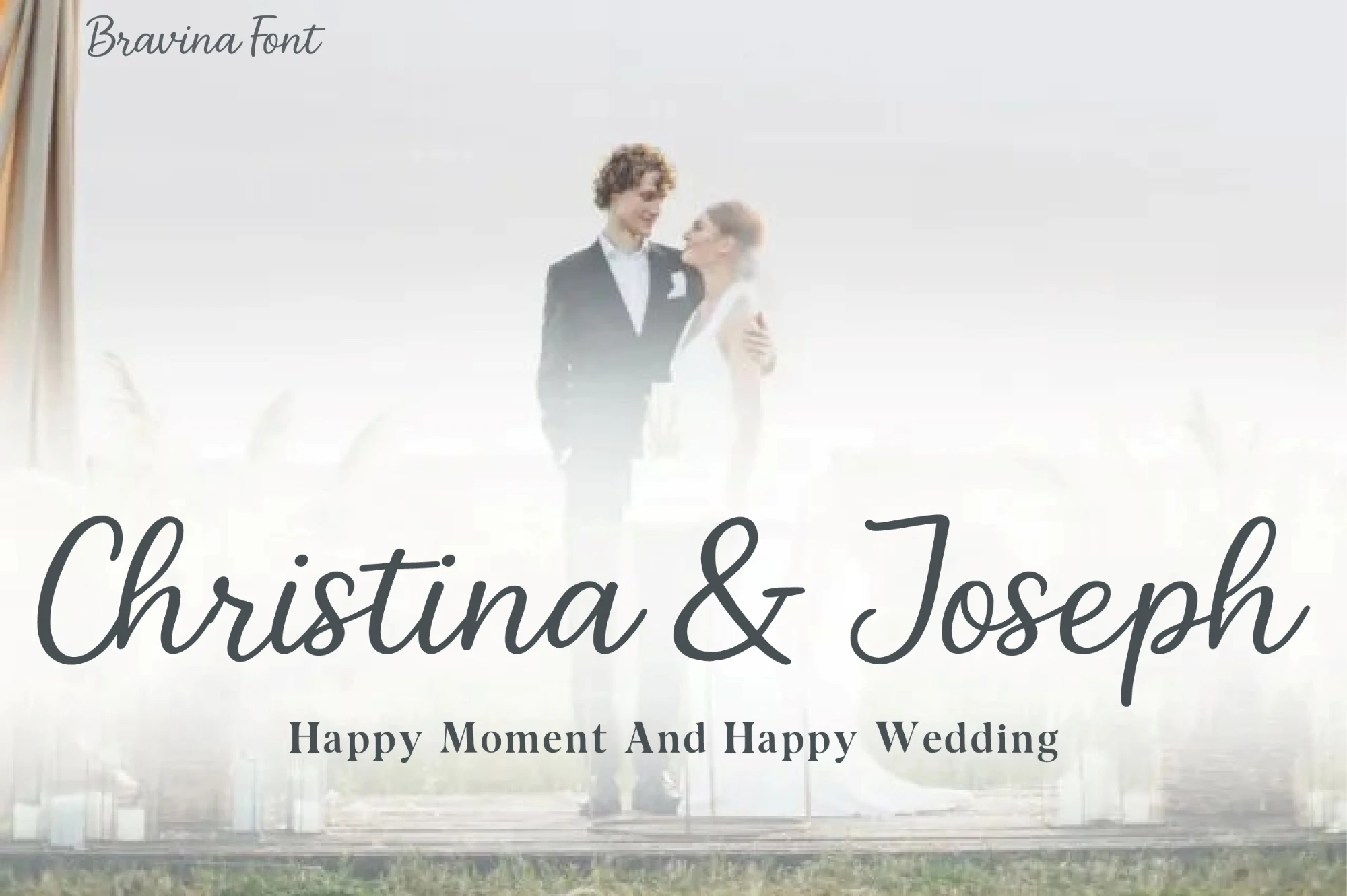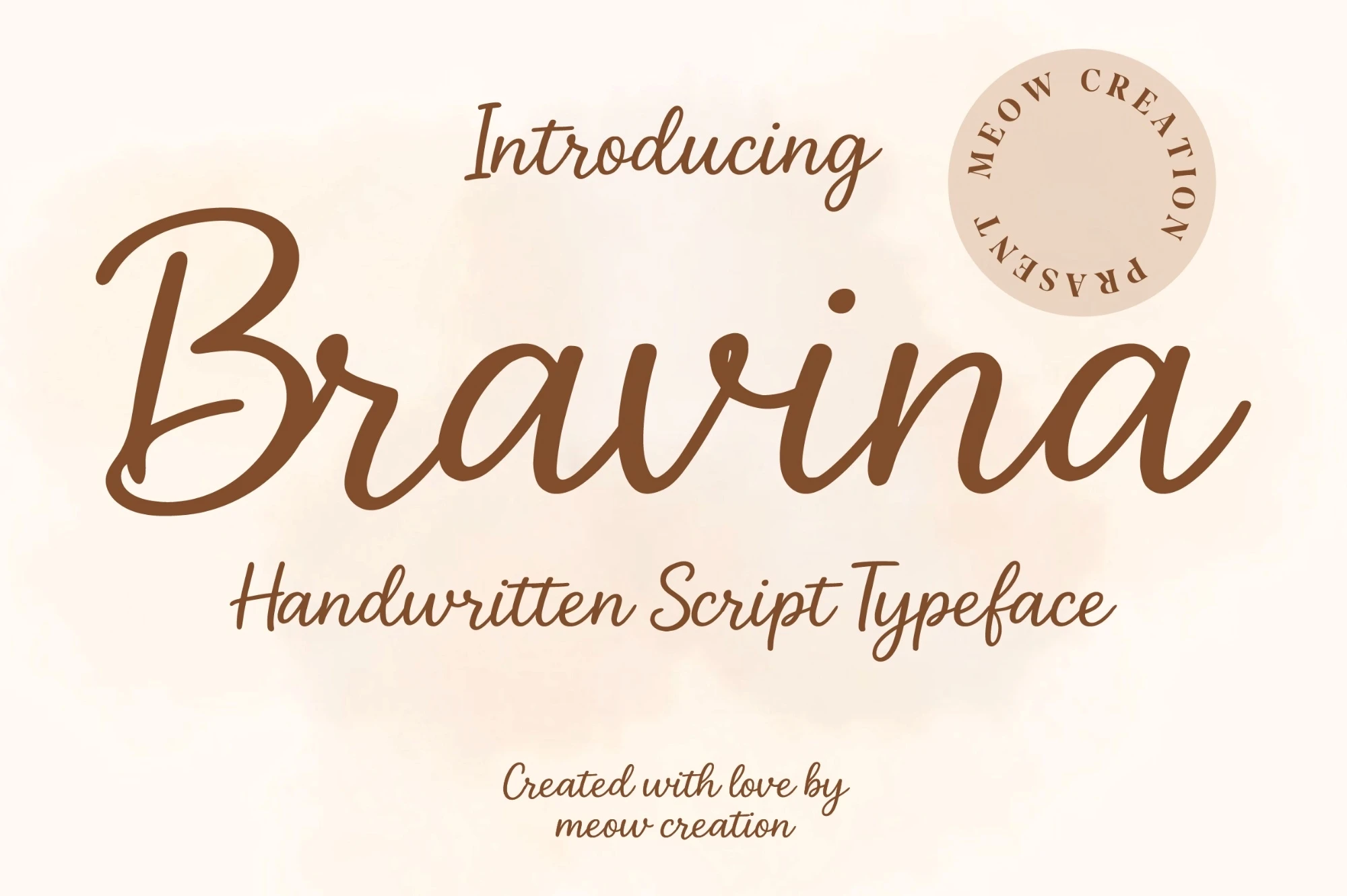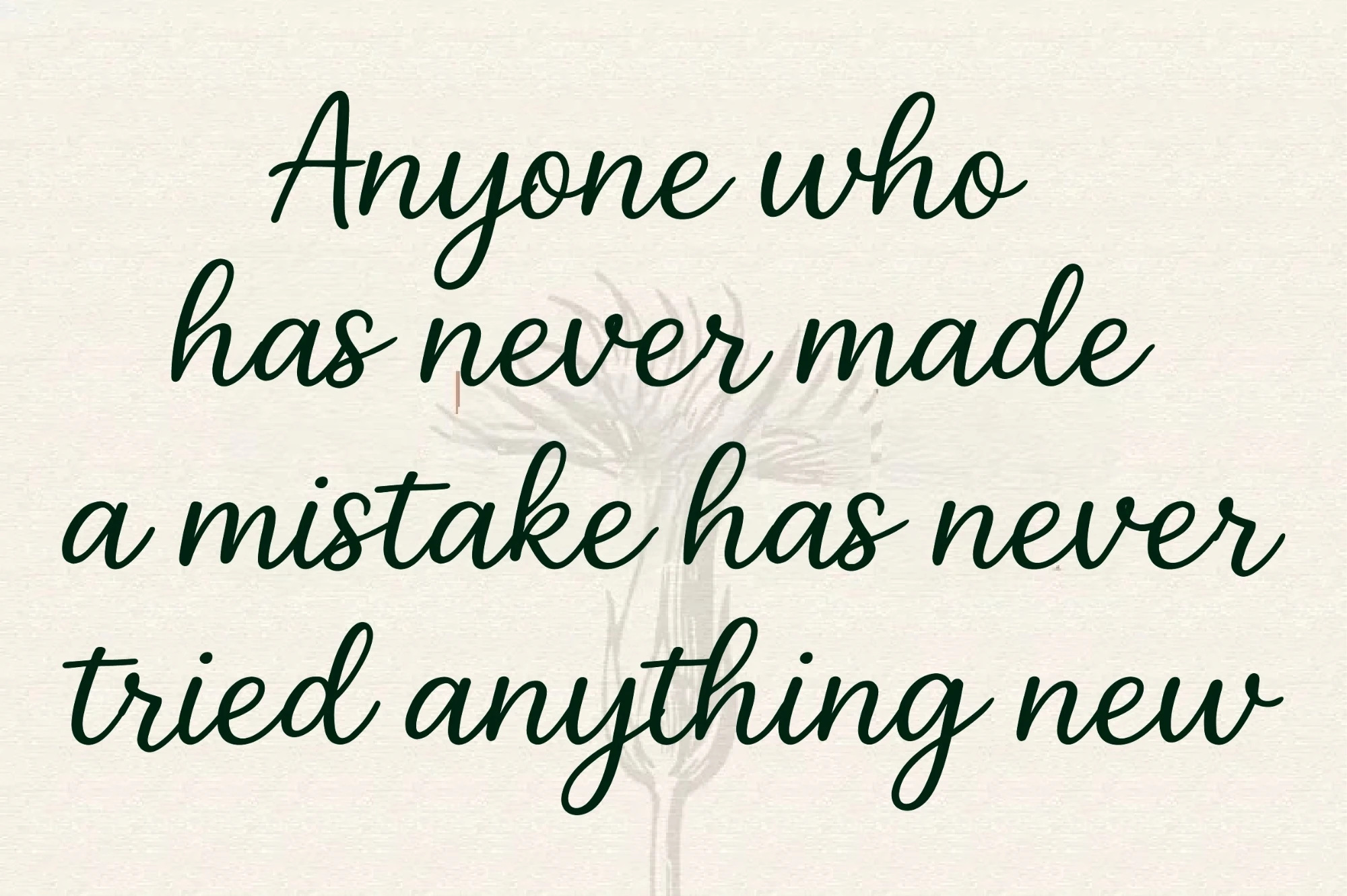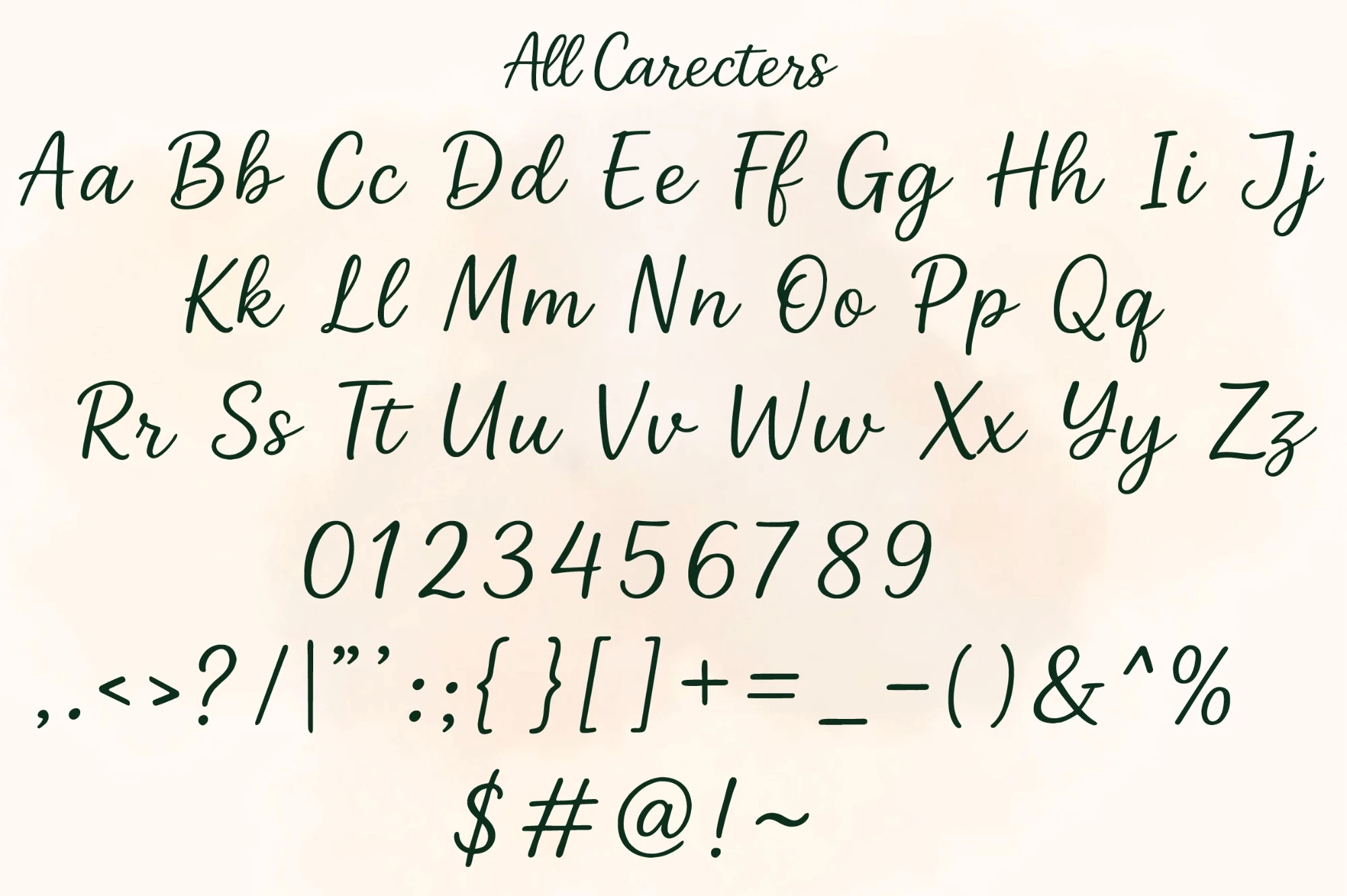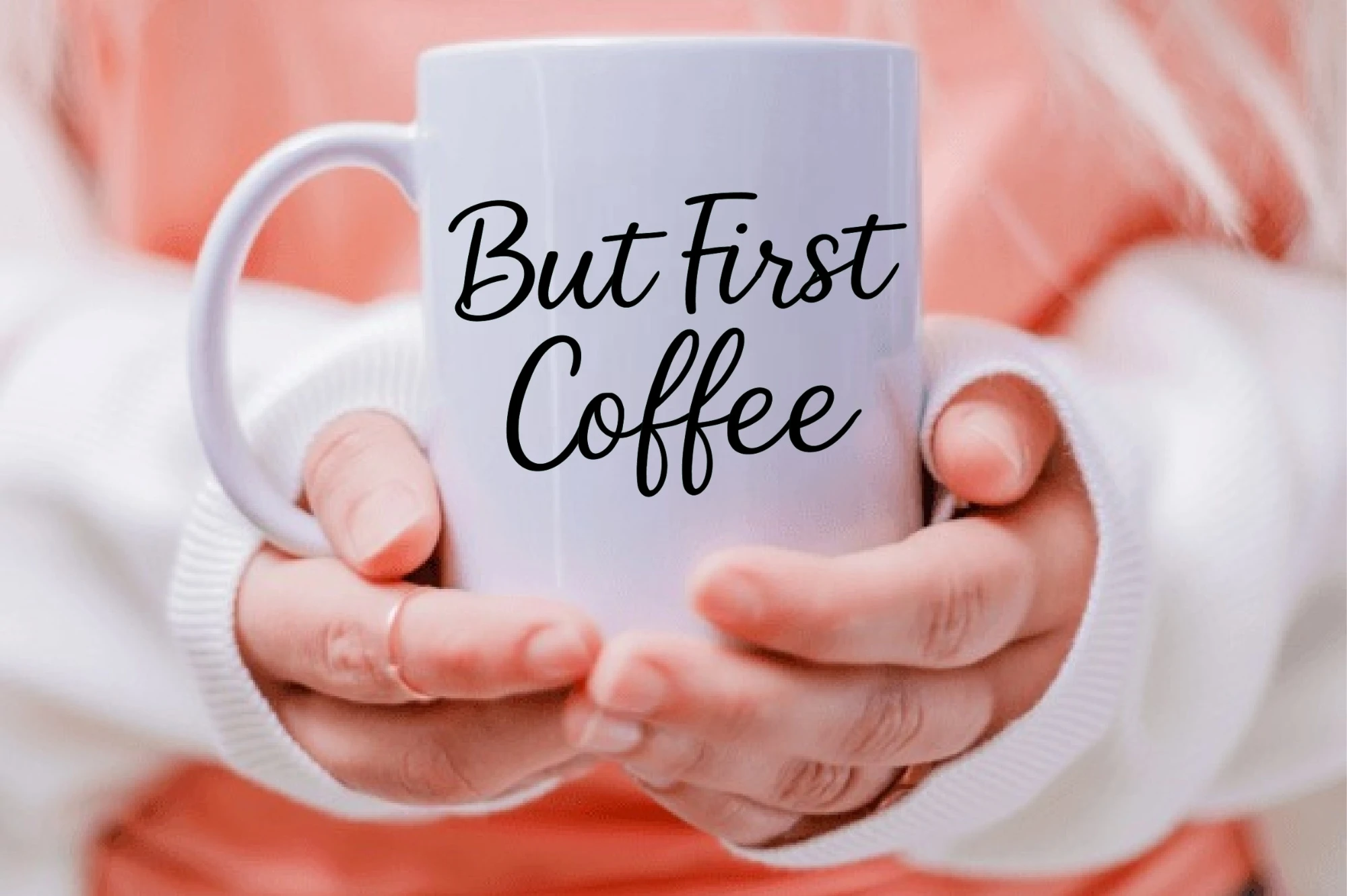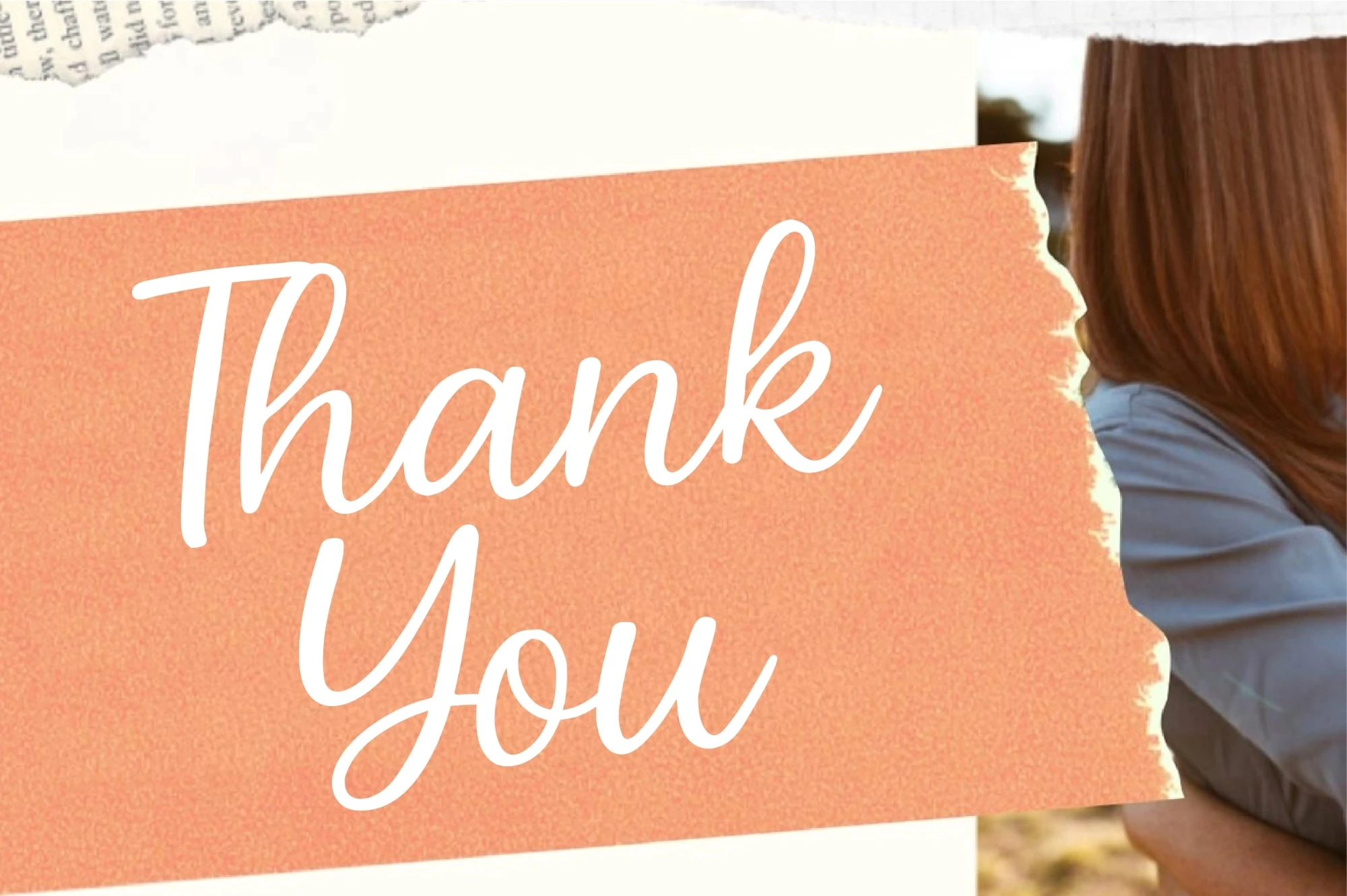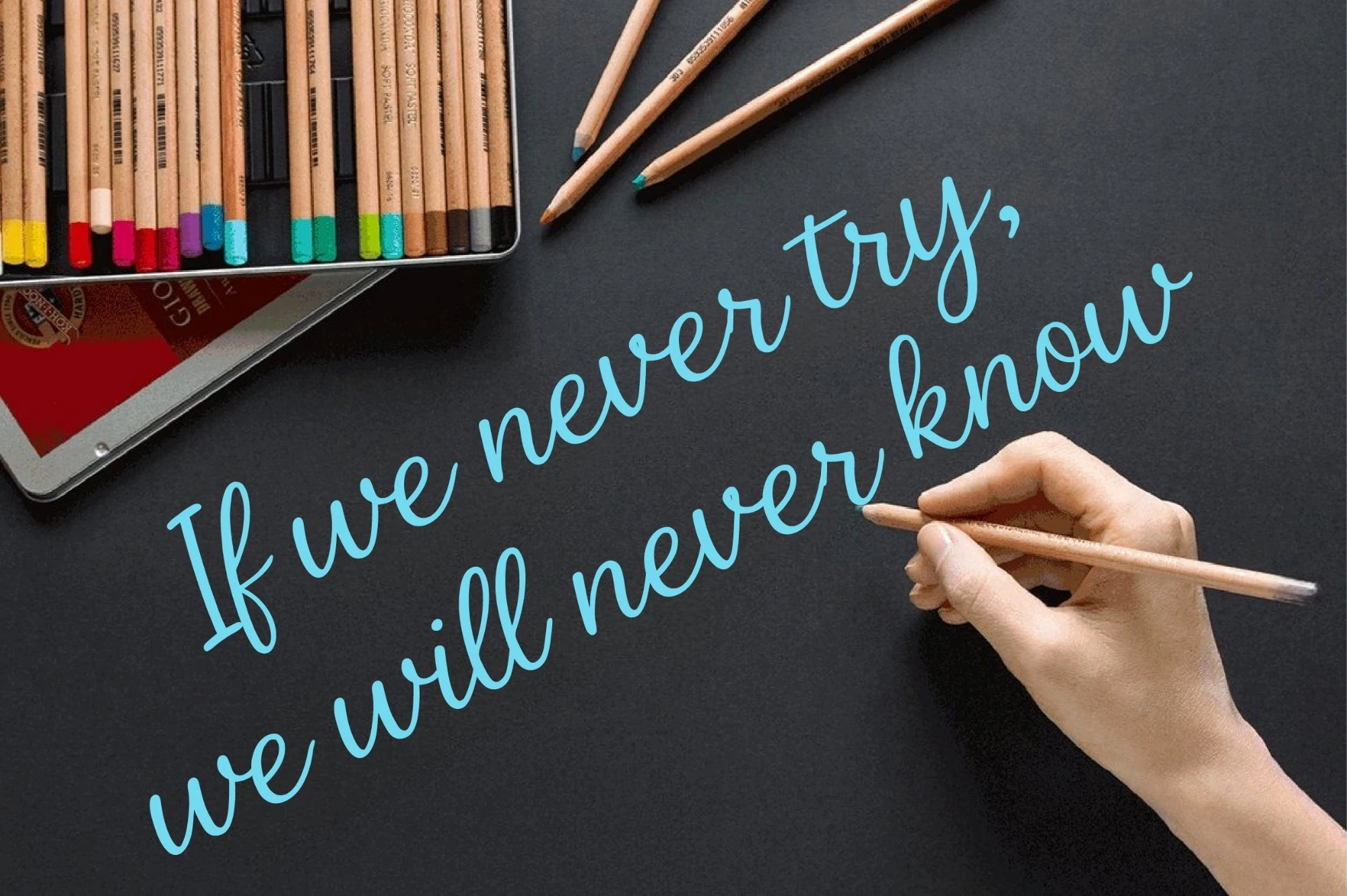
Bravina is a clean and elegant handwritten script font with a natural flow. Its smooth curves and simple strokes create a warm, personal touch in every design. Perfect for adding a friendly and stylish feel to your creative projects.
Use Bravina for greeting cards, branding, logos, quotes, invitations, stickers, labels, social media posts, and print-on-demand designs. The legibility and modern handwritten style make it suitable for both casual and professional use.
Bring a soft, charming, and authentic handwritten look to your designs with Bravina.
Use Bravina for greeting cards, branding, logos, quotes, invitations, stickers, labels, social media posts, and print-on-demand designs. The legibility and modern handwritten style make it suitable for both casual and professional use.
Bring a soft, charming, and authentic handwritten look to your designs with Bravina.